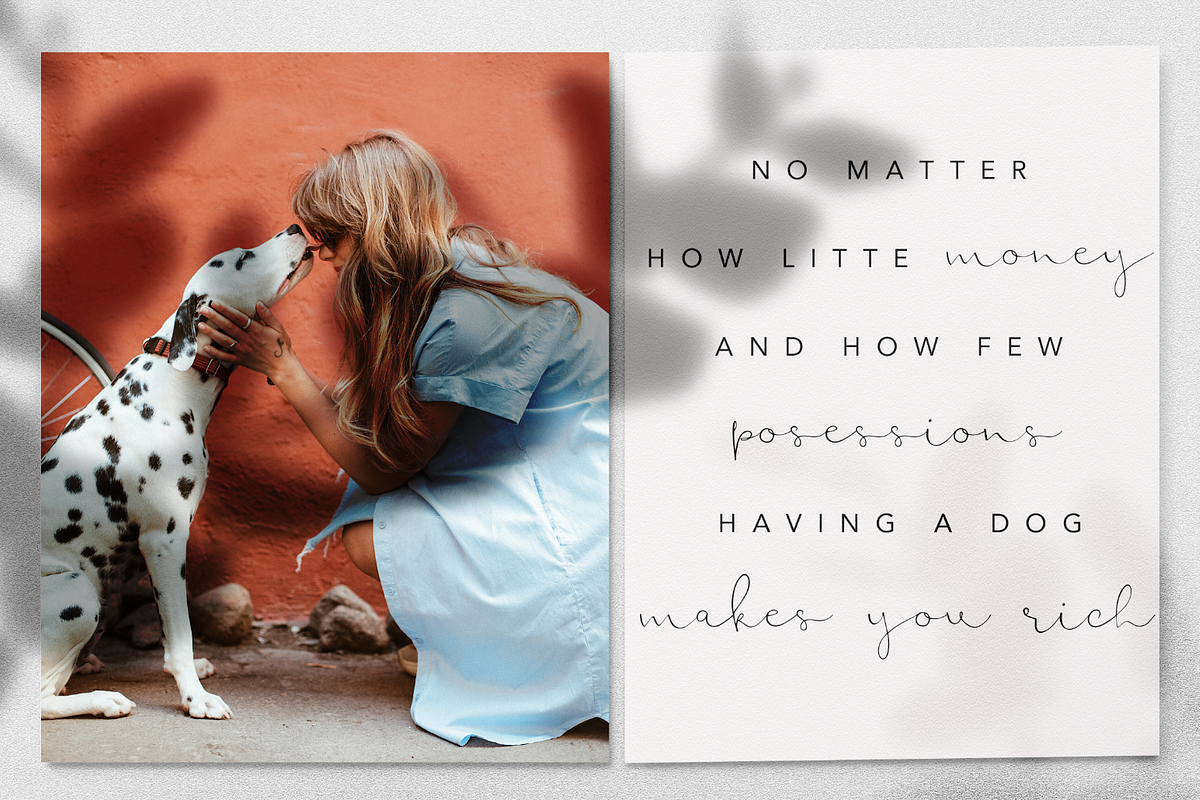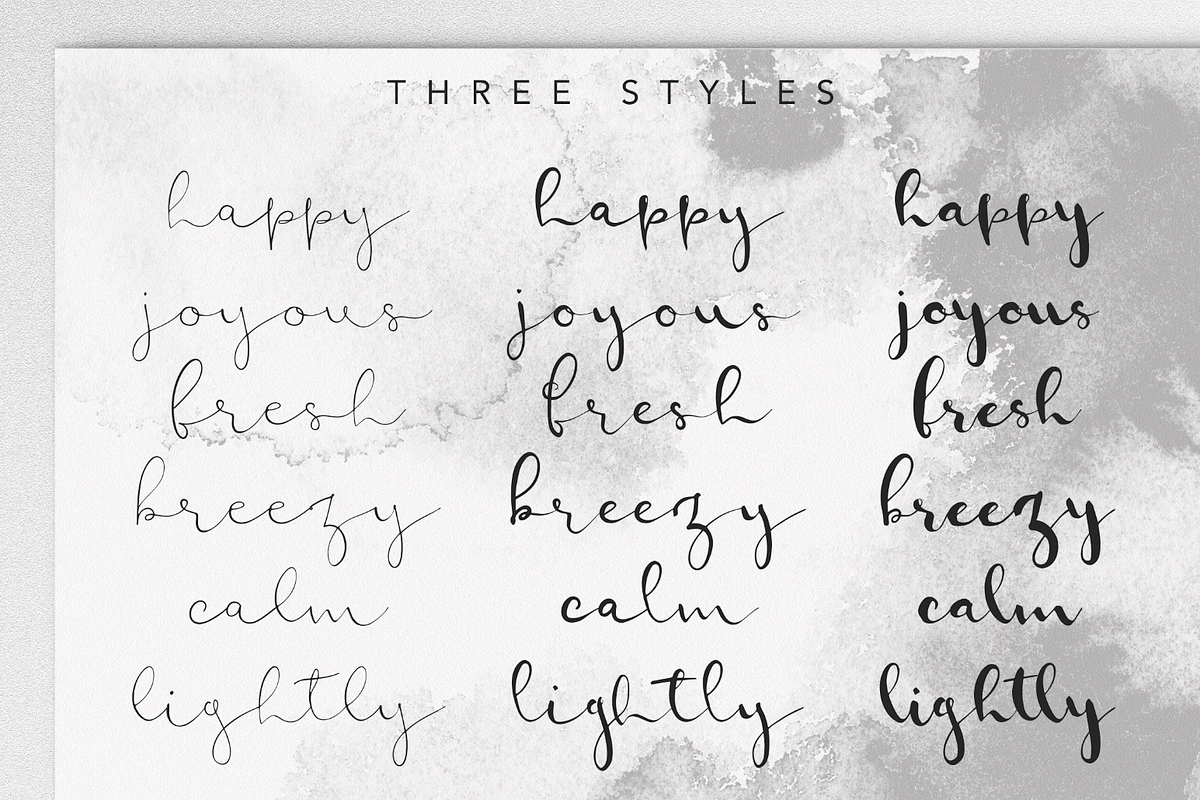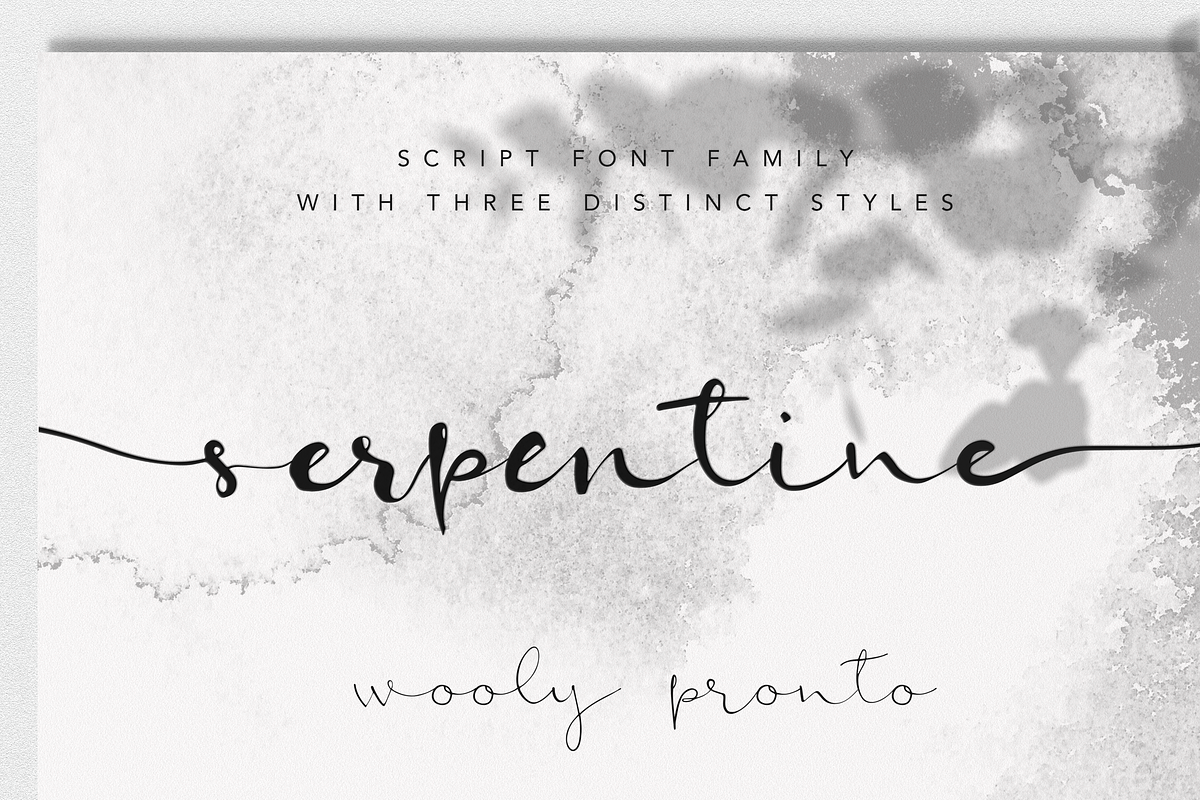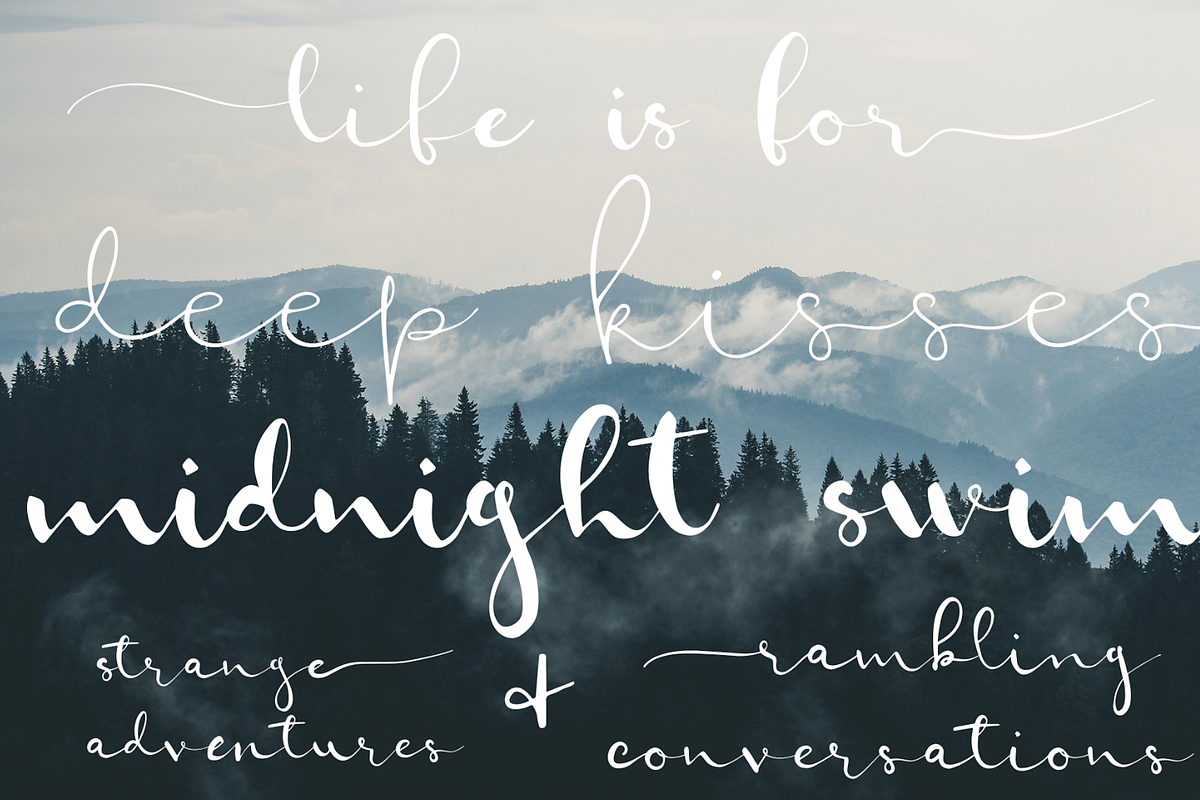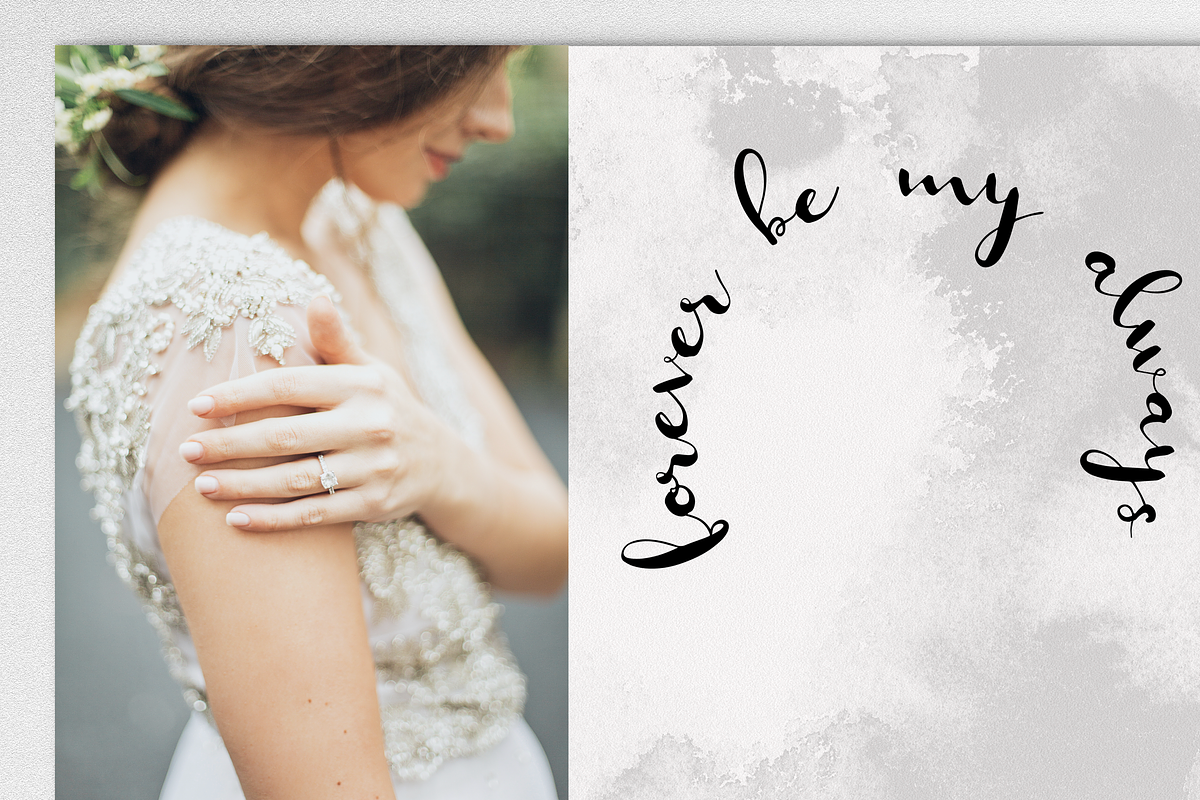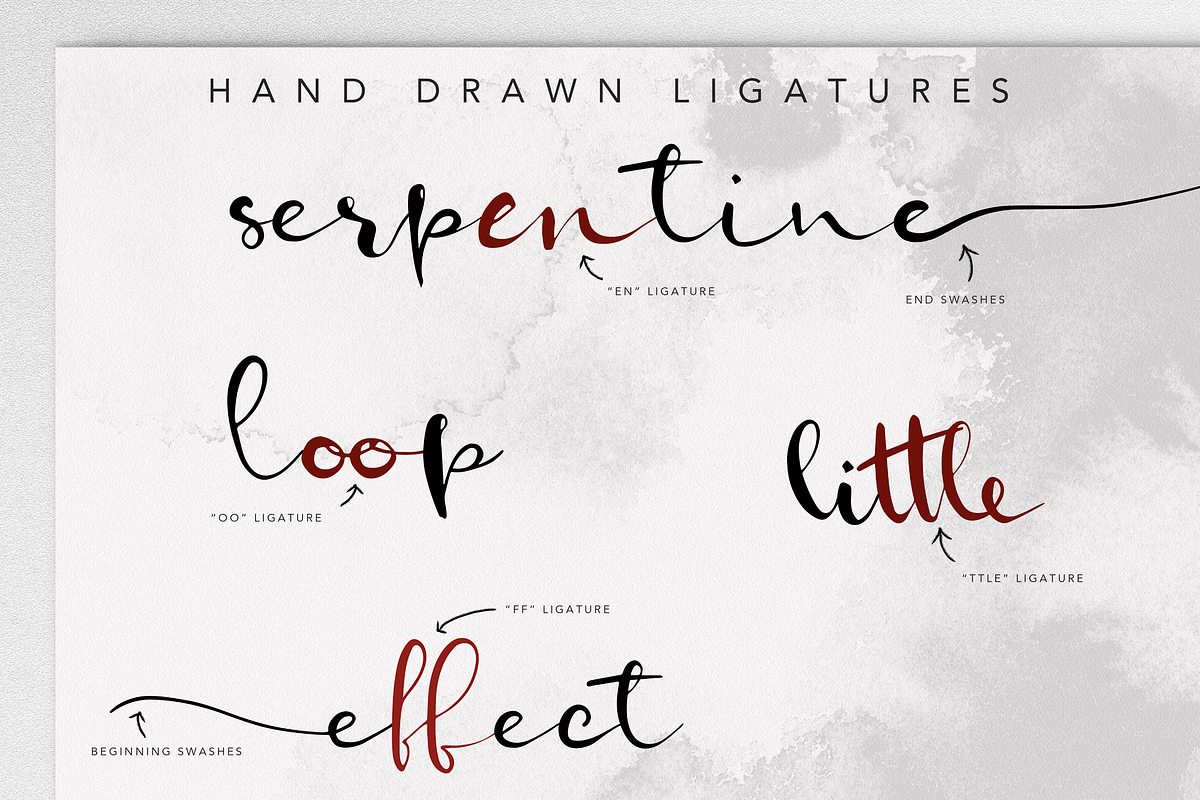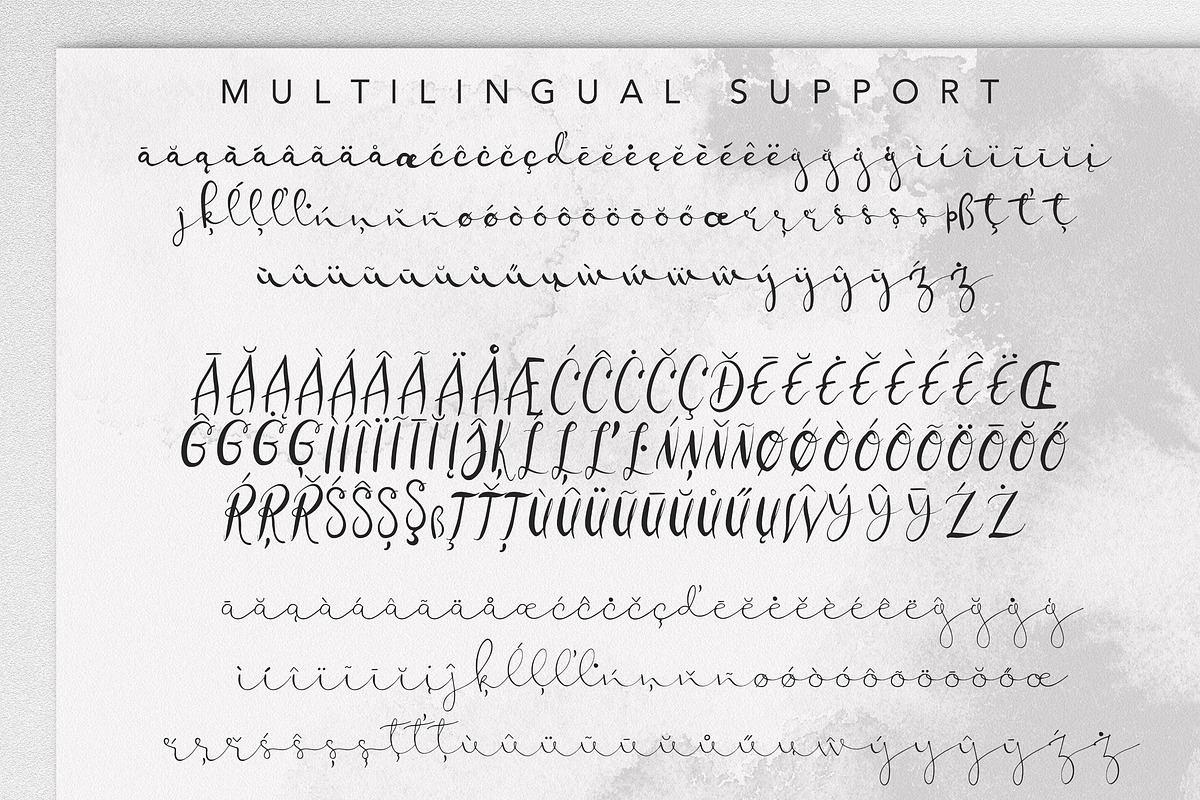
Serpentine Script Font Family
Introducing Serpentine: a hand drawn script font, featuring three unique styles. Interchange them all for truly individual handwritten appearances.
- Regular style (lowercase, uppercase, language support)
- Skinny style (lowercase, uppercase, language support)
- Bold style (lowercase)
- Beginning swashes (lowercase)
- End Swashes (lowercase)
- 38 ligatures